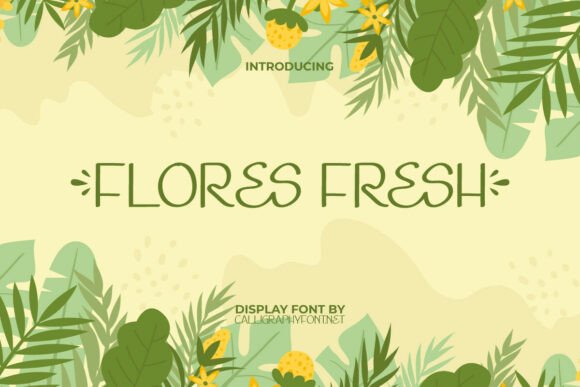
Introducing Flores Fresh Font: The Ultimate Typographic Solution for Modern Designs
In the world of typography, a font can make or break a design. It can elevate a brand’s identity, convey emotions, and capture attention. If you’re on the hunt for a font that embodies freshness, modernity, and elegance, look no further than Flores Fresh Font. This stunning typeface is designed to bring a pleasant, natural, and fresh touch to your designs, making it perfect for a wide range of applications.
What Makes Flores Fresh Font Stand Out?
Flores Fresh Font boasts a unique blend of light letter shapes and subtle twists, resulting in a simple yet elegant and distinctive look. This balanced typography is carefully crafted to serve as both an uplifting and eye-catching font, full of character. Whether you’re designing a brand logo, brochure, business card, or packaging, Flores Fresh Font is the perfect choice.
- Fresh and Modern Design: Flores Fresh Font features a contemporary design that will give your projects a youthful and vibrant feel.
- High Readability: The font’s clear and clean lines ensure that your text remains easily readable, even at smaller sizes.
- Elegant and Unique: The subtle twists and light letter shapes give Flores Fresh Font a distinctive look that sets it apart from other fonts.
Endless Design Possibilities with Flores Fresh Font
Flores Fresh Font is incredibly versatile and can be used for a wide range of design projects, including:
- Brand logo and branding materials
- Brochures, flyers, and catalogs
- Business cards and stationery
- Custom bags and packaging design
- Greeting cards and invitations
- Headers, headlines, and titles
- Labels and signage
- Mockups and templates
- Quotes and posters
- Screen print and apparel design
Whether you’re a graphic designer, entrepreneur, or small business owner, Flores Fresh Font is an excellent choice for any project that requires a fresh and modern typographic solution.
Key Features of Flores Fresh Font
Flores Fresh Font comes with a comprehensive set of features that make it an attractive option for designers:
- Complete Character Set: The font includes uppercase and lowercase basic characters, numbers, punctuation, and symbols.
- Cute Swoosh Character: A charming swoosh character is included to complement the font and add a touch of whimsy to your designs.
- Multilingual Support: Flores Fresh Font supports multilingual characters, making it perfect for international designs.
Industries That Can Benefit from Flores Fresh Font
Flores Fresh Font is suitable for a wide range of industries, including:
- Accessories and Merchandise: Add a touch of elegance to your product labels and packaging.
- Botany and Floristry: Perfect for creating beautiful signage, labels, and marketing materials for flower shops and botanical gardens.
- Cafeteria and Restaurant: Use Flores Fresh Font to create menus, flyers, and branding materials that reflect your brand’s personality.
- Event Organizer: Create stunning invitations, posters, and promotional materials for events and weddings.
- Fashion and Apparel: Use Flores Fresh Font to create stylish logos, labels, and marketing materials for your fashion brand.
- Gardener and Landscaping: Perfect for creating signs, labels, and marketing materials for gardening and landscaping businesses.
- Graphic Design: Add Flores Fresh Font to your design arsenal and use it to create stunning visual content for clients.
- Handicraft and Artisan: Use Flores Fresh Font to create beautiful labels, packaging, and marketing materials for your handmade products.
- Photography: Create stunning photo albums, portfolios, and promotional materials with Flores Fresh Font.
Flores Fresh Font is an exceptional typographic solution for designers and businesses looking for a fresh, modern, and elegant font. Its versatility, readability, and unique character make it perfect for a wide range of design projects. With its comprehensive feature set, multilingual support, and compatibility with popular design software, Flores Fresh Font is an excellent addition to any design arsenal.